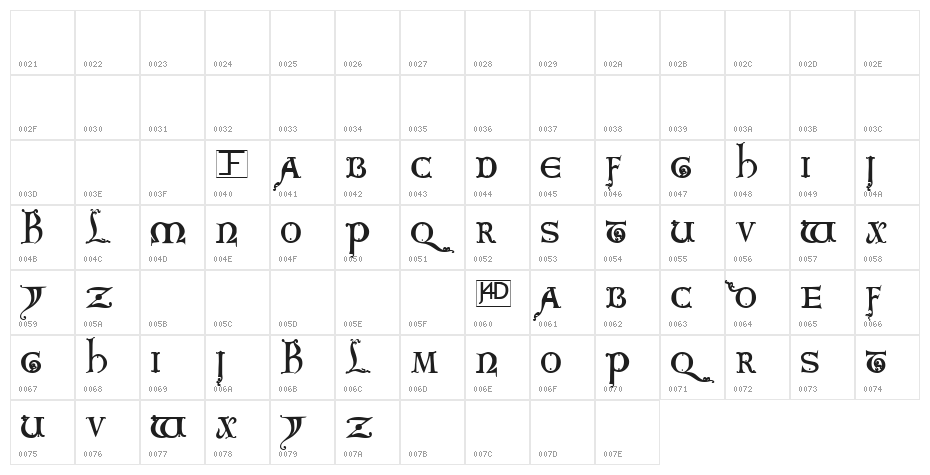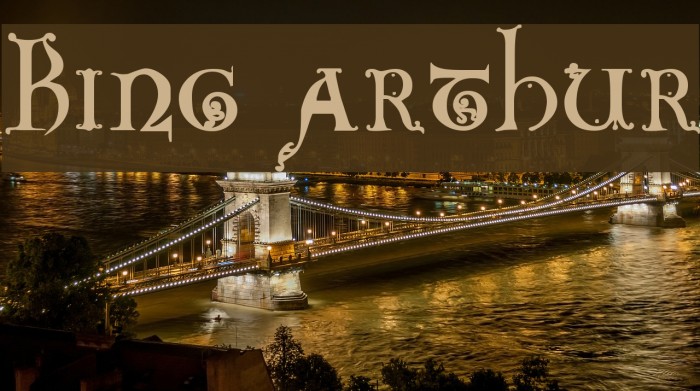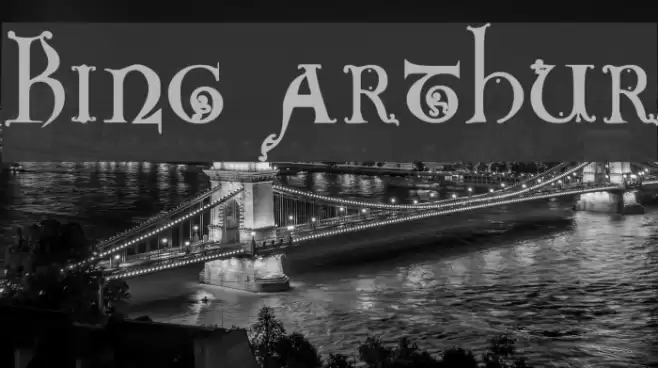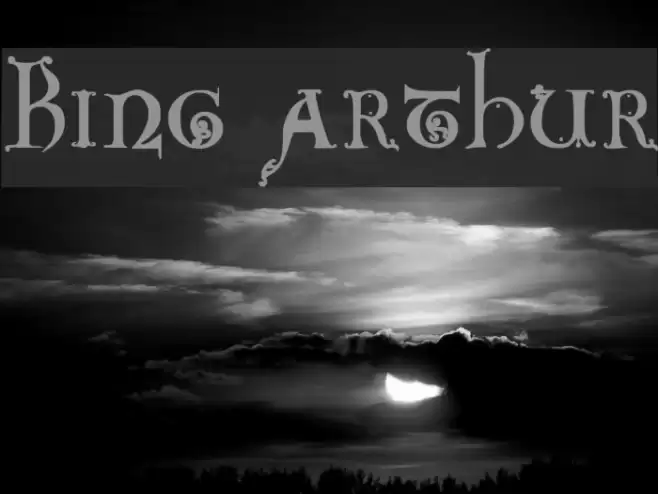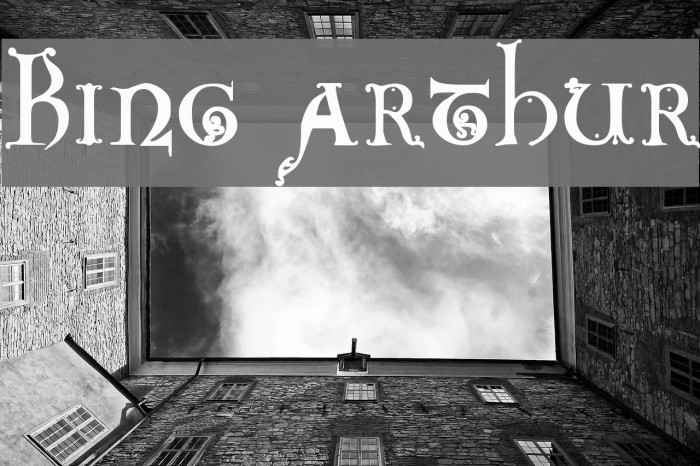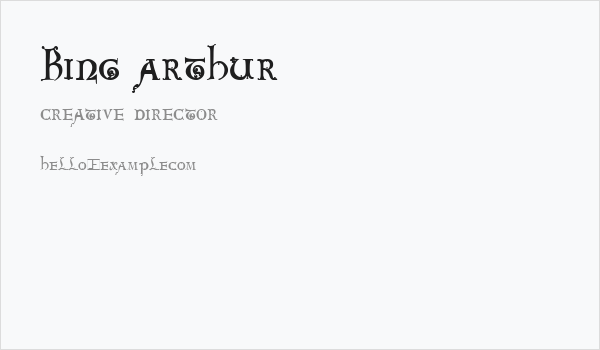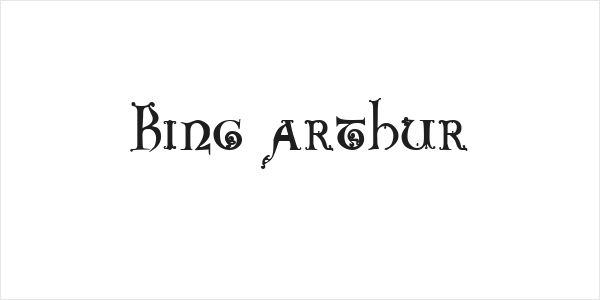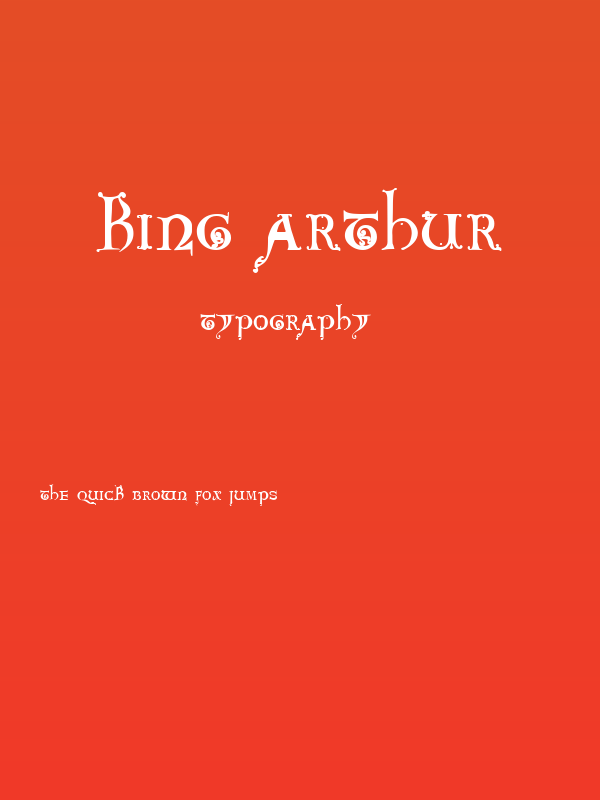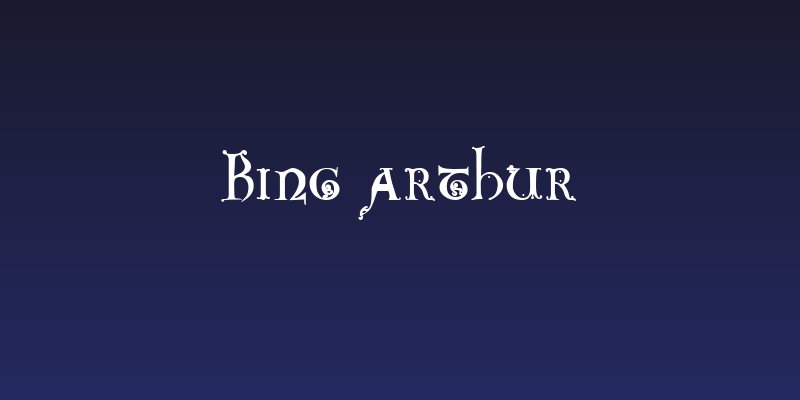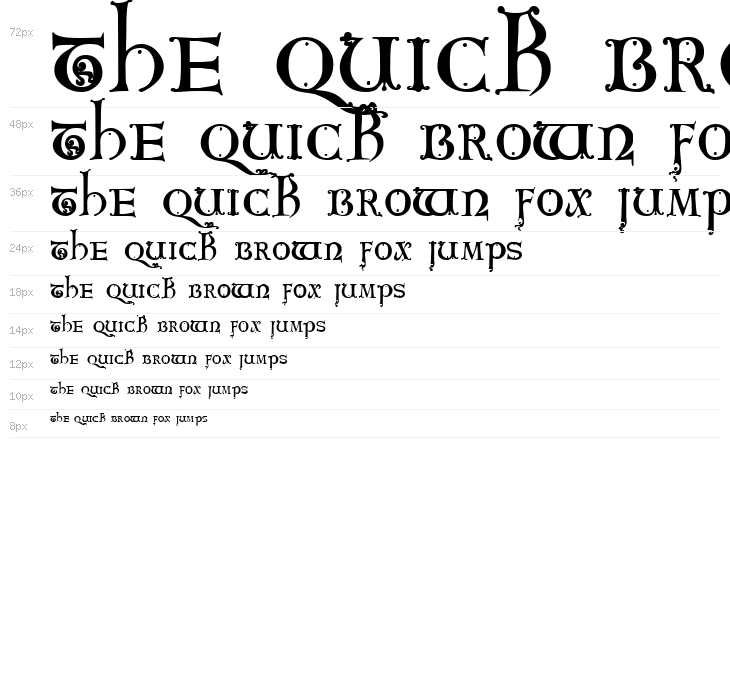
King Arthur Font
King Arthur Description
This font features an ornate and decorative style reminiscent of medieval script. Each character is embellished with intricate flourishes and curves, giving it a regal and historical appearance. The uppercase letters are particularly elaborate, with additional swirls and extensions that enhance their visual impact. The lowercase letters maintain a consistent style, though they are slightly less ornate. The overall design is bold and striking, making it suitable for projects that require a touch of elegance and antiquity.
| Proposed Projects | Ideal for fantasy-themed designs, historical event invitations, book covers, and decorative signage. |